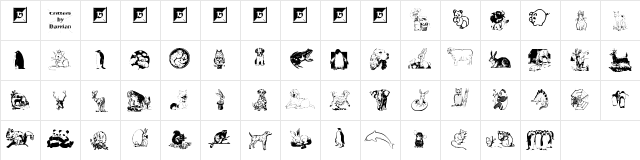
Critters by Darrian Regular
Design Context for Critters by Darrian Typeface
Critters by Darrian is a composed and adaptable typeface that performs quietly and consistently across a wide range of design contexts.